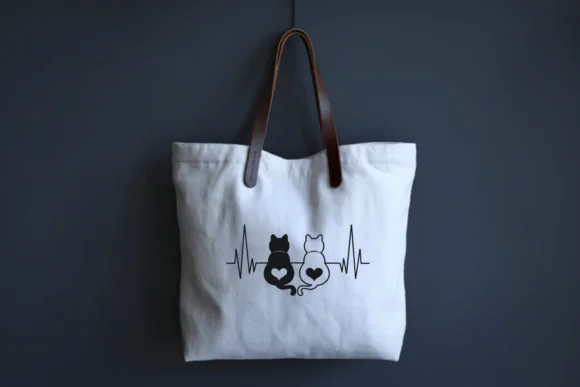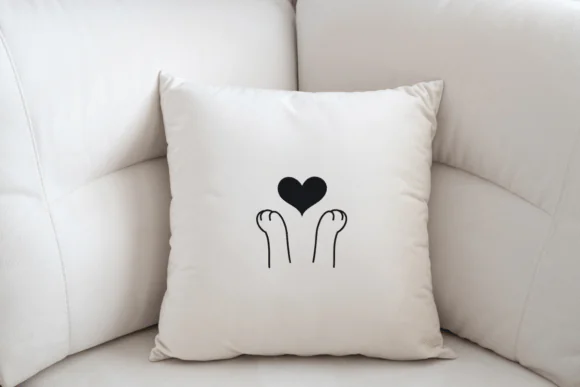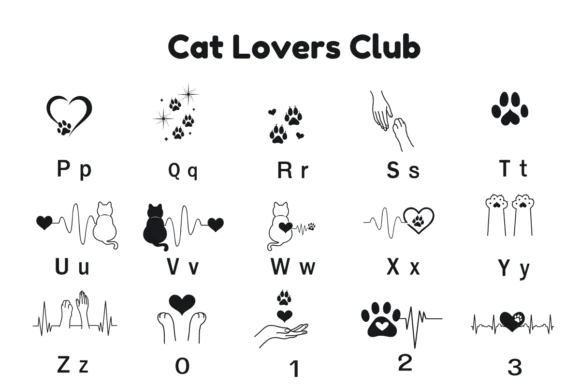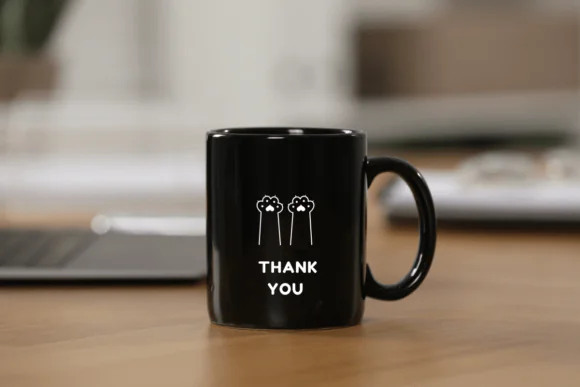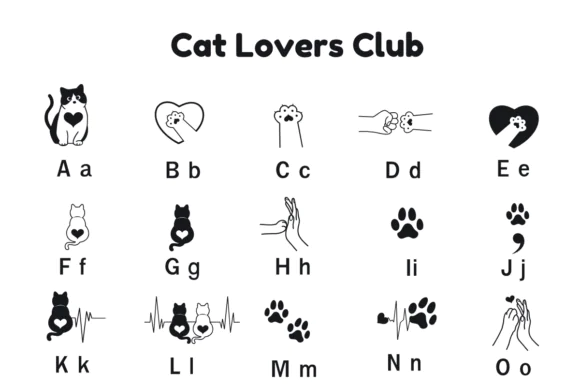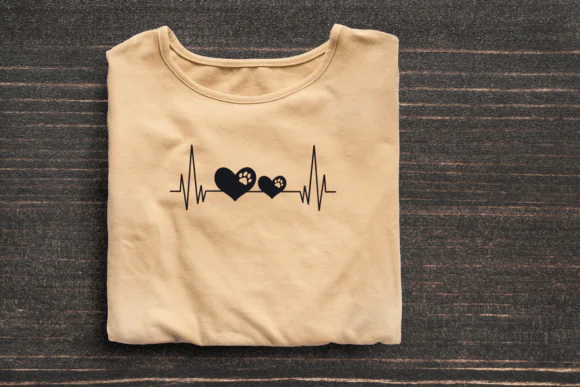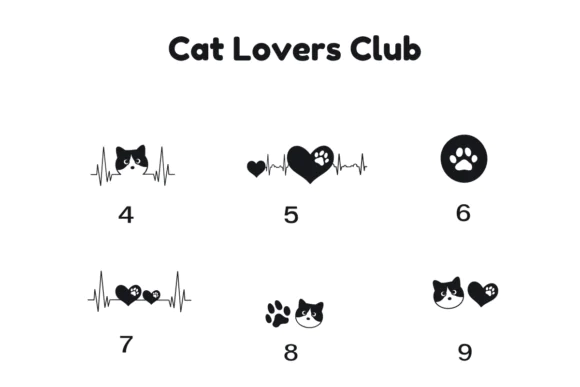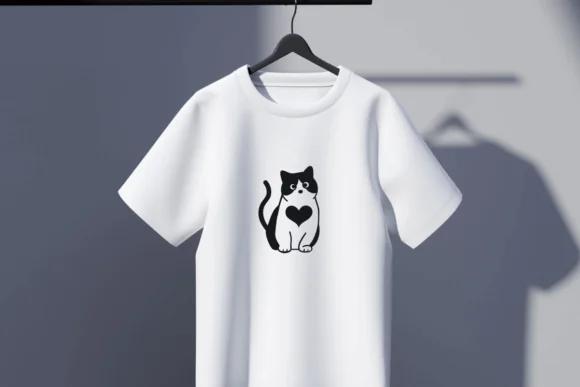
Create playful, cute, and personality-filled cat-themed designs with Cat Lovers Club Font, a feline-inspired dingbat font made for pet lovers, cat brands, crafters, and digital creators. This decorative icon font includes a variety of cat-themed graphics such as paw prints, heart-tail silhouettes, paw fist-bumps, kitty-pulse lines, and other expressive feline-inspired elements.
Cat Lovers Club is perfect for designers, pet boutique owners, veterinary clinics, sticker sellers, apparel creators, print-on-demand sellers, social media designers, and small business owners who want a charming cat icon toolkit for creative projects. Instead of using ordinary text, this font helps you express emotion, cuteness, and pet-loving personality through ready-to-use feline dingbats.
Use it to create cat stickers, pet shop branding, veterinary clinic icons, cat-themed social media graphics, playful apparel patterns, t-shirt designs, mugs, tote bags, planner stickers, packaging labels, greeting cards, wall art, pet adoption graphics, and digital craft projects.
Whether you are designing for a cat café, pet boutique, animal clinic, cat lover gift shop, or cute handmade product line, Cat Lovers Club Font adds a fun and memorable feline touch to every design.
Key Style Features